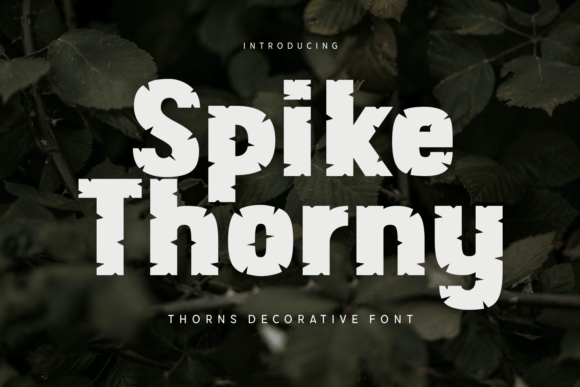
Dive into the realm of creativity and discover Spike Thorny—a decorative font that unleashes the unbridled spirit of wild designs. Embark on a journey where your imagination runs untamed, expressing itself through spiked-shaped characters that capture the essence of untamed nature. This unique typeface is a masterpiece of artistry, designed to ignite the passions of those who dare to stand out. Let Spike Thorny be your untamed companion as you craft captivating logos, branding materials, invites, posters, and social media graphics that ooze with personality.
Unleash your inner artist and explore the vast possibilities that Spike Thorny offers. With its distinctive, edgy style, this font is a visual symphony that will leave a lasting impression. Whether you're designing for fashion, music, or adventure-themed projects, Spike Thorny will elevate your creations to new heights, adding a touch of boldness and originality that is sure to turn heads.
Experience the thrill of crafting designs that pulsate with energy and captivate audiences. Let Spike Thorny be your wild companion as you challenge conventions and leave an indelible mark on the world of visual artistry. Dare to be different, dare to be wild—Spike Thorny awaits your creative touch.